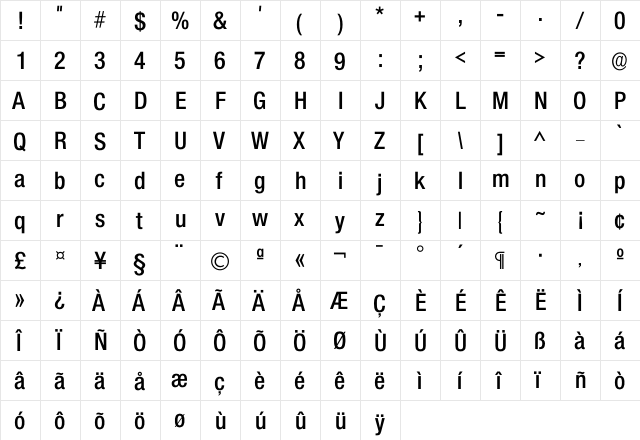
Colnova DemiBold Font Preview
Colnova DemiBold
Design Context for Colnova Typeface
Colnova is a composed and adaptable typeface that performs quietly and consistently across a wide range of design contexts. The heavy weight commands attention and anchors typographic hierarchies.